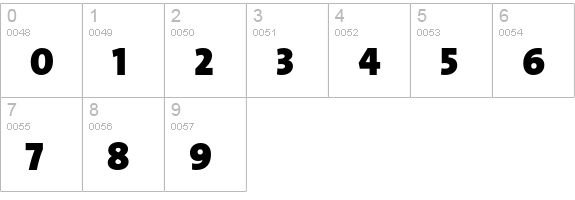
TheMix Black Caps is a maximum-weight, dramatic variant in the TheMix typeface family \xE2\x80\x94 well suited to maximum-impact headlines, posters, and packaging.
TheMix Black Caps font is a stunning display typeface that exudes elegance and sophistication. With its bold and commanding presence, it is perfect for creating eye-catching headlines, logos, and posters that demand attention. Featuring carefully crafted uppercase letters, TheMix Black Caps font showcases clean lines and sharp edges, giving it a strong and modern appeal. Each character is meticulously designed to ensure legibility and readability, even at smaller sizes. This versatile font is suitable for a wide range of design projects, from branding and advertising to editorial layouts and packaging. Whether you're designing a high-end fashion magazine or creating a sleek and professional website, TheMix Black Caps font will add a touch of class and refinement to your typography. The best part? TheMix Black Caps font is available for free! You can easily download this exceptional typeface at FontsMarket.com, one of the most trusted sources for high-quality fonts. With just a few clicks, you can enhance your designs with this beautiful font without spending a dime. Don't miss out on the opportunity to elevate your designs with TheMix Black Caps font. Download it for free today at FontsMarket.com and unleash your creativity with this remarkable typeface.